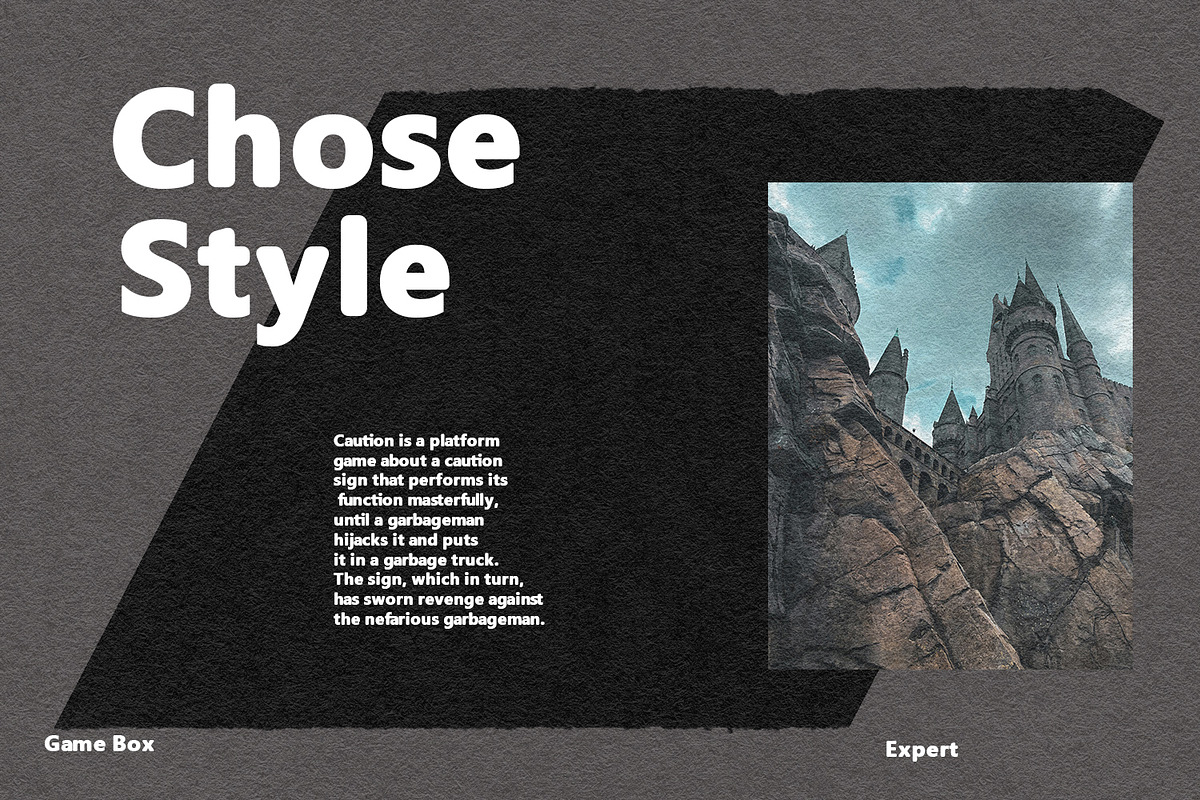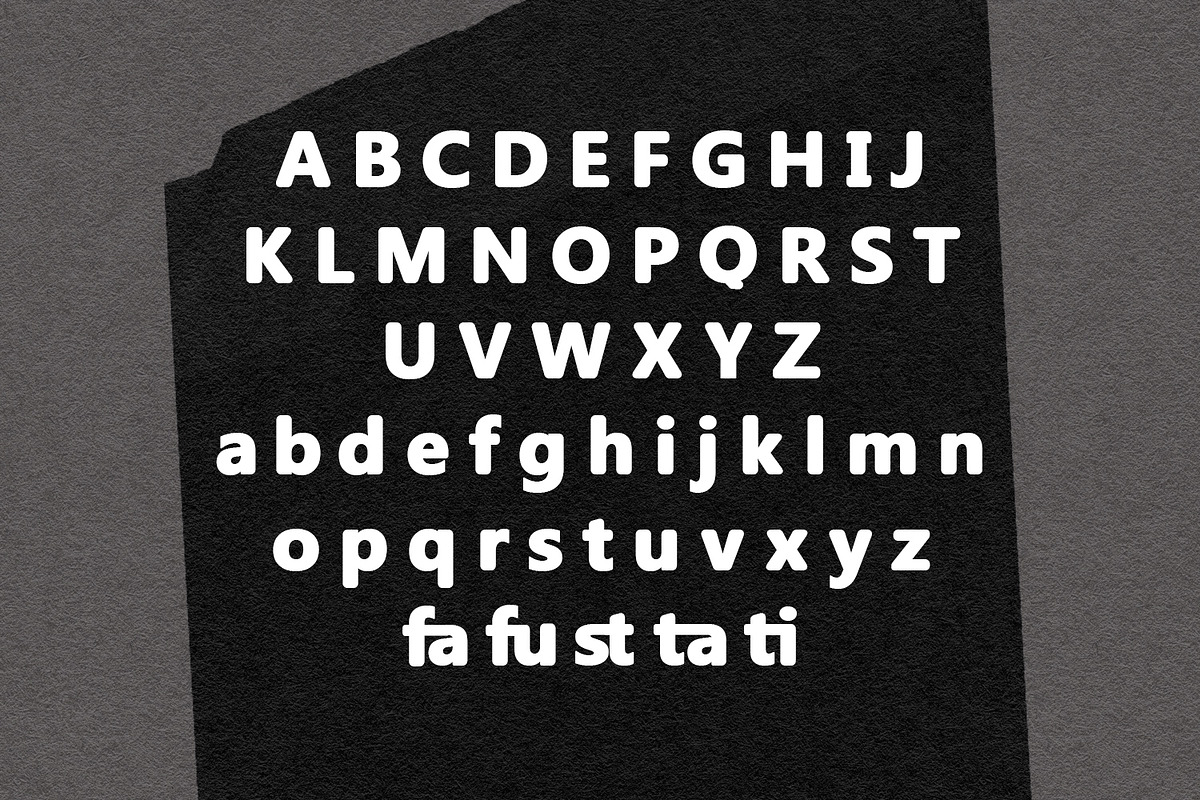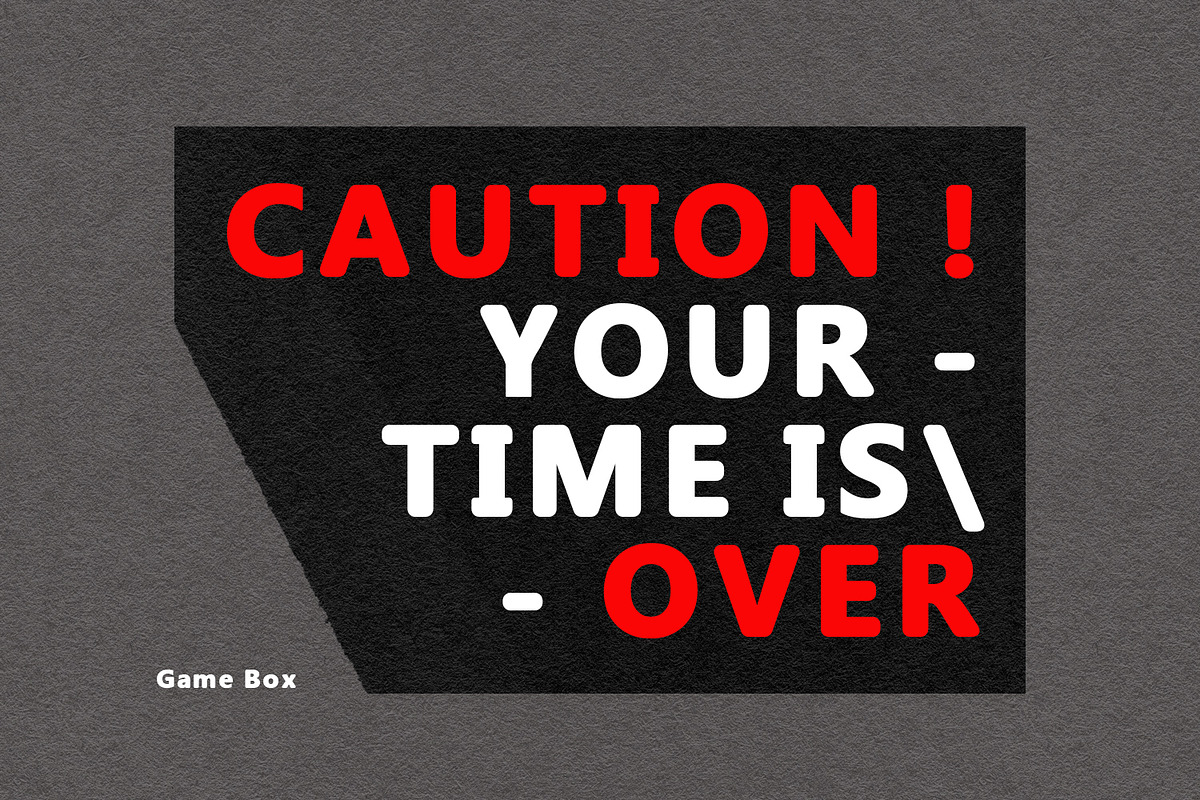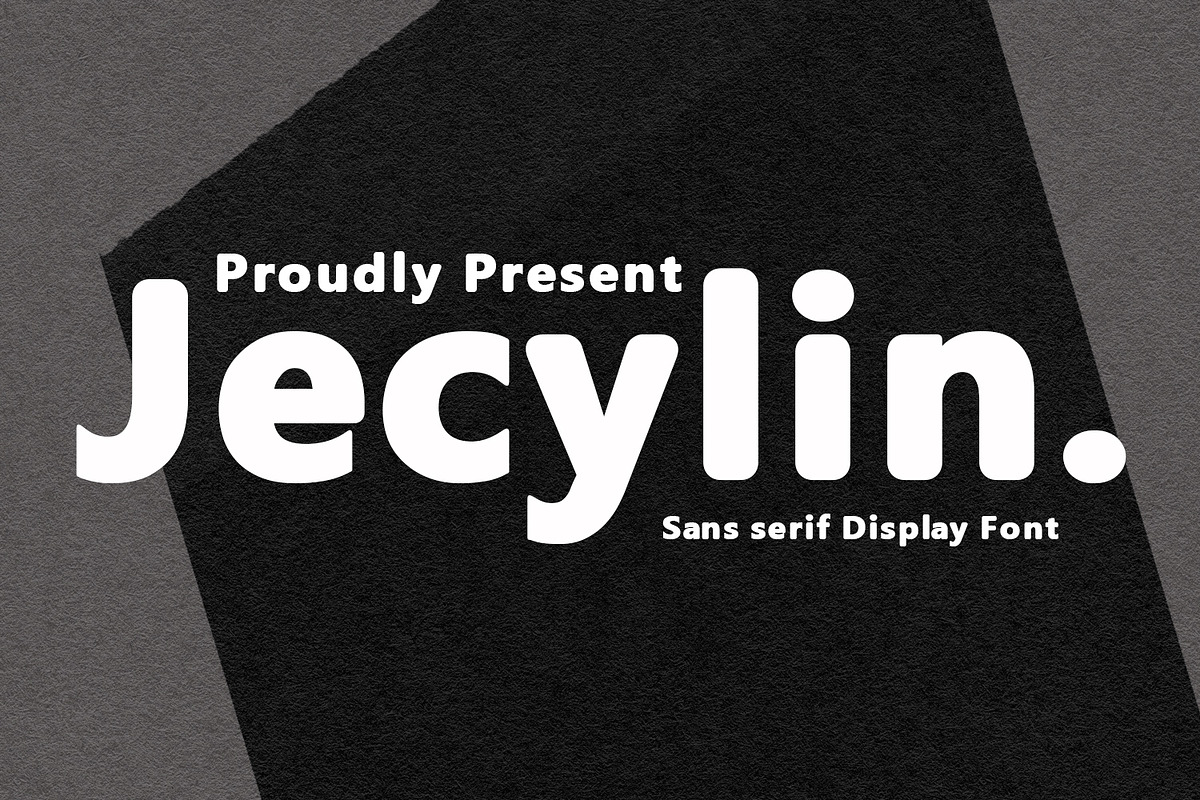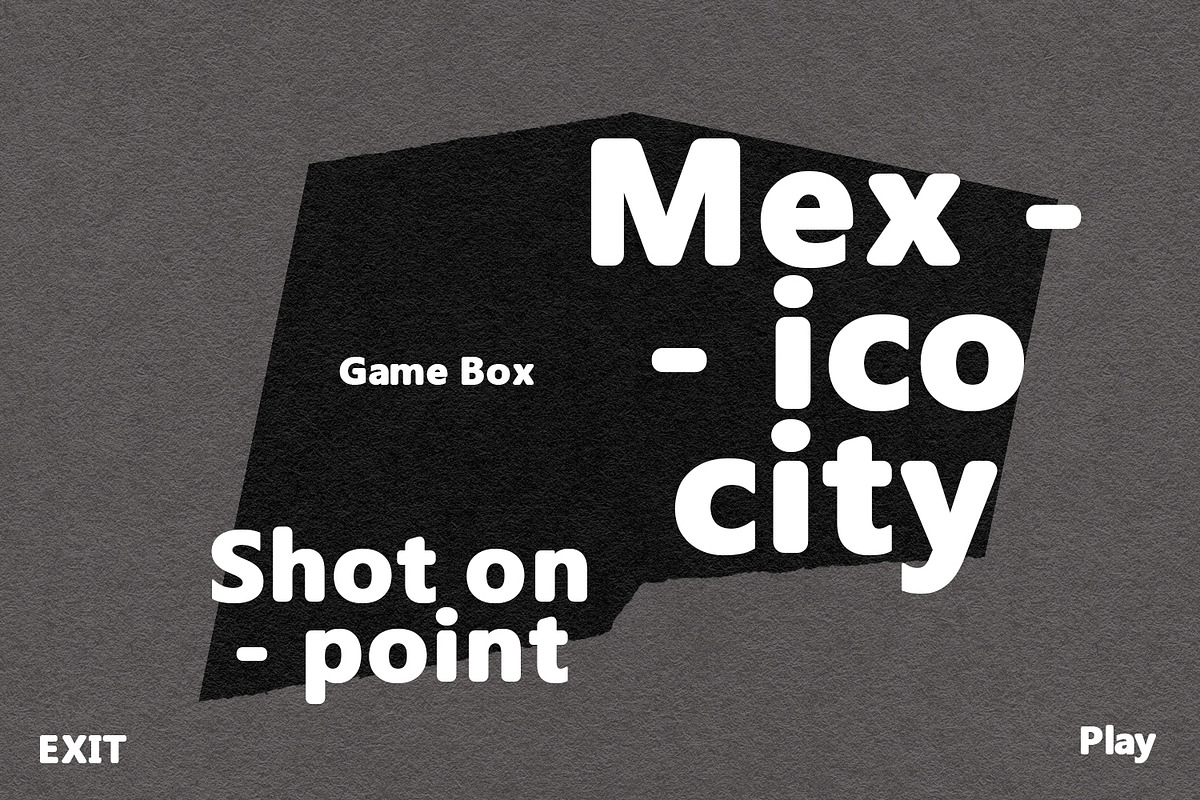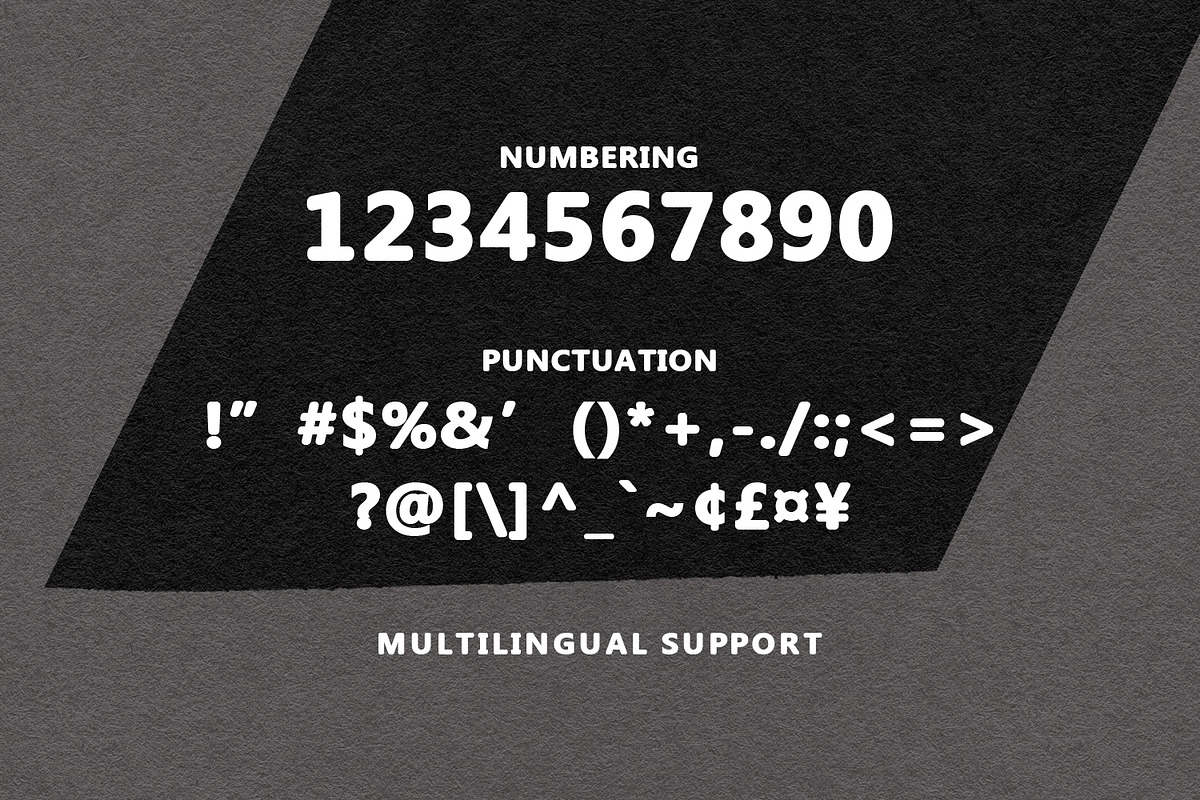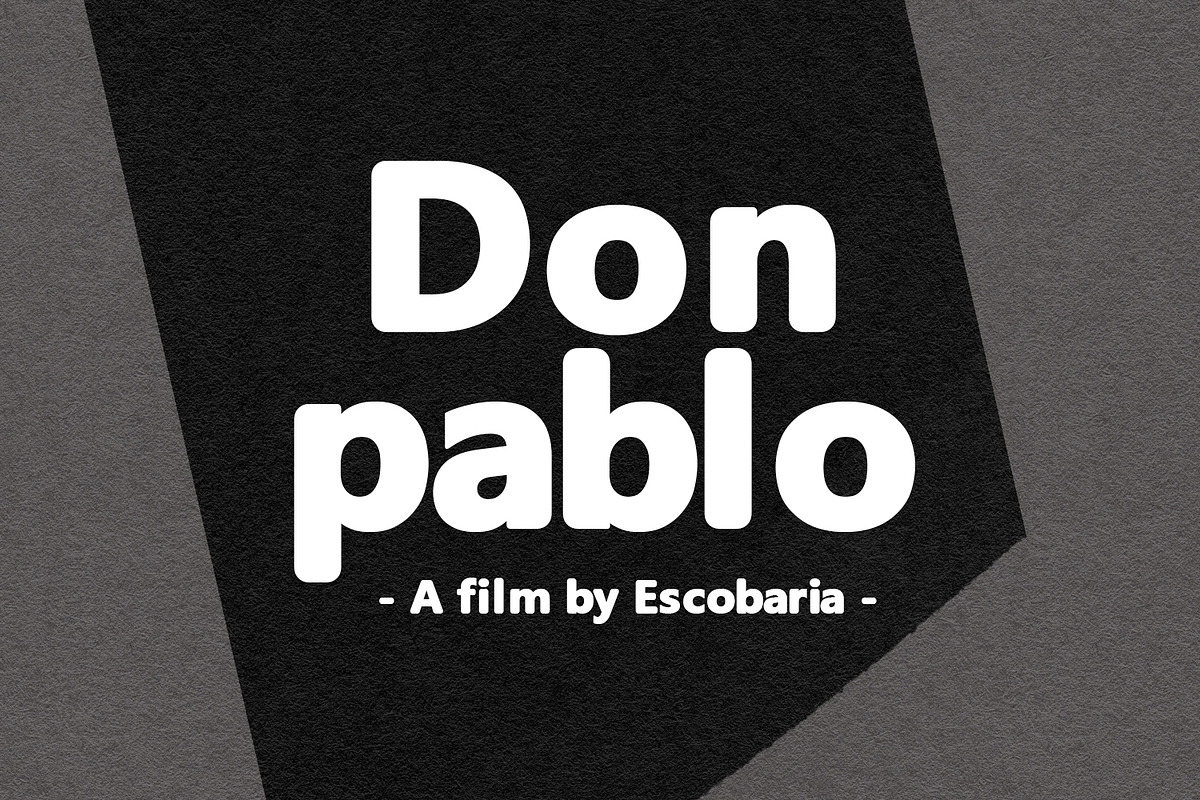
Jecylin Sans Serif Rounded Display
Jecylin is a rounded sans serif display font. With medium low contrast stroke, fun character with a bit of ligatures. To give you an extra creative work, Jecylin font support multilingual more than 100+ language. This font is good for logo design, Social media, Movie Titles, Books Titles, a short text even a long text letter and good for your secondary text font with sans or serif. Make a stunning work with Jecylin font.